How do you design a font for a fictional language?
Lyon-based graphic designer Jérémy Barrault recently undertook a rather unusual project: designing a typeface for a fictional dialect for French singer Nosfell, who speaks his very own language, Klobobetz, which is supposed to be the Klokochazian tongue.
Barrault has often worked on music based projects and initially made the font for Nosfell last year, which he has now developed into a codex-like publication.
Nosfell’s full stage name, Labyala Fela Da Jawid Fel, means “The one who walks and heals”; and his Klokobetz language draws on sounds from African, Asian and European languages.
“My father spoke seven official languages. Klokobetz was number eight, an uncanny tongue he invented and reserved for secret personal conversations with me at night,” says the singer. “He moved out when I was 12, and during my teens, I began working on a written version of the alphabet. Trying to describe the characters with roman type was never enough—I had to imagine more accents and diphthongs, so I started to draw signs on paper.”
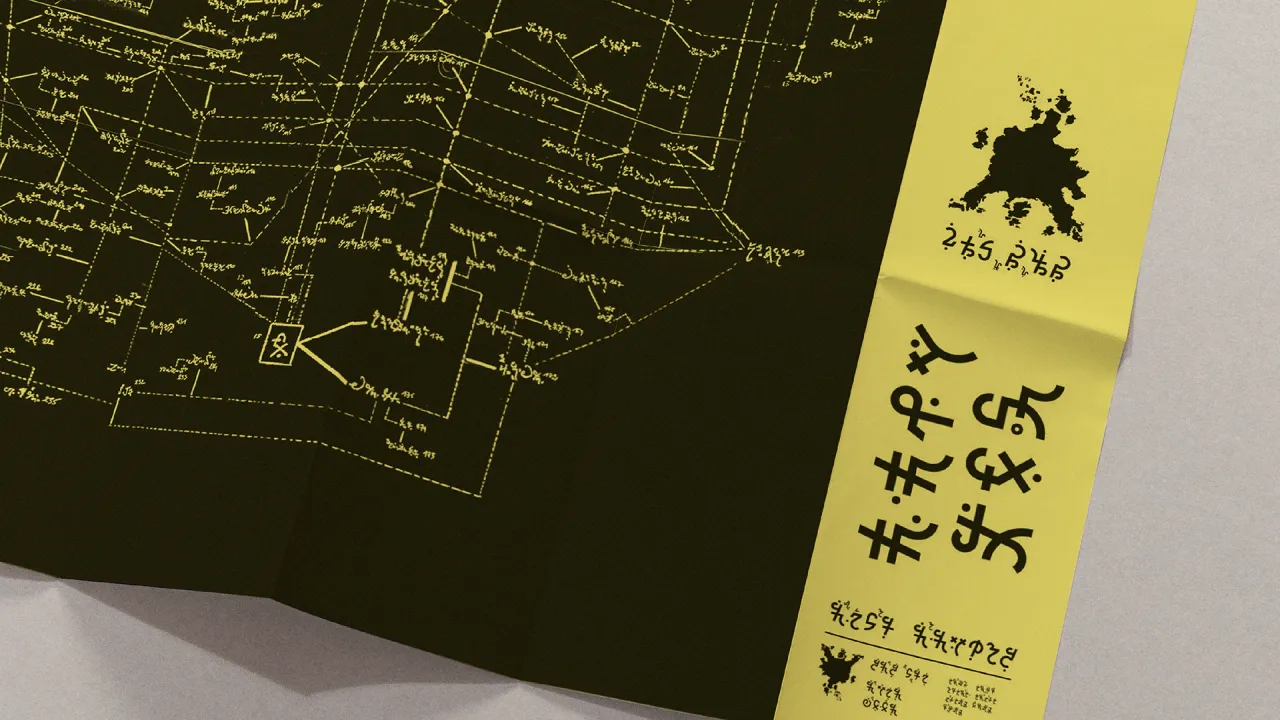
Barrault first encountered Nosfell’s work at a concert in 2007; and worked on his tour poster in 2016 to develop a unique typeface that would visually express Klokobetz.
“At first, I looked at many other scripts for reference, but I quickly realised that the project was different from all other typefaces—Klokobetz is a complete language with its own particular grammar and syntax,” Barrault told writer Angela Riechers. “The alphabet’s logic is specific to Nosfell yet is influenced by all kinds of other writing systems.”
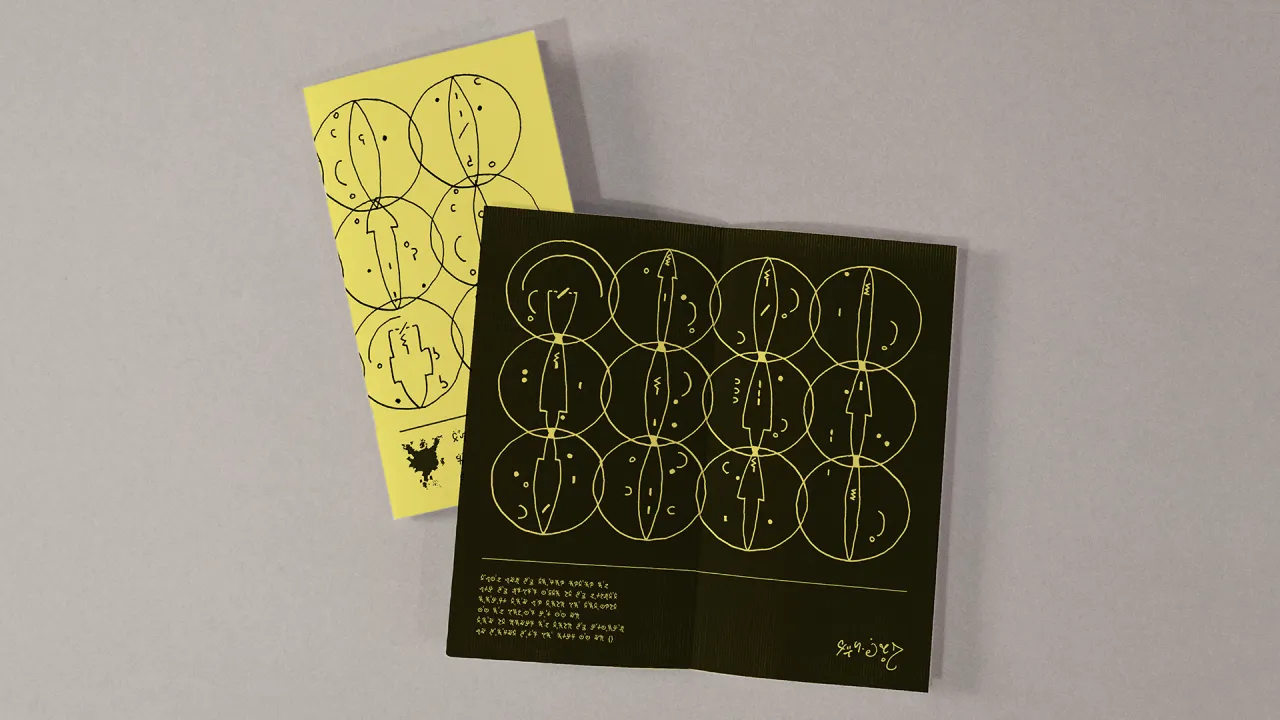
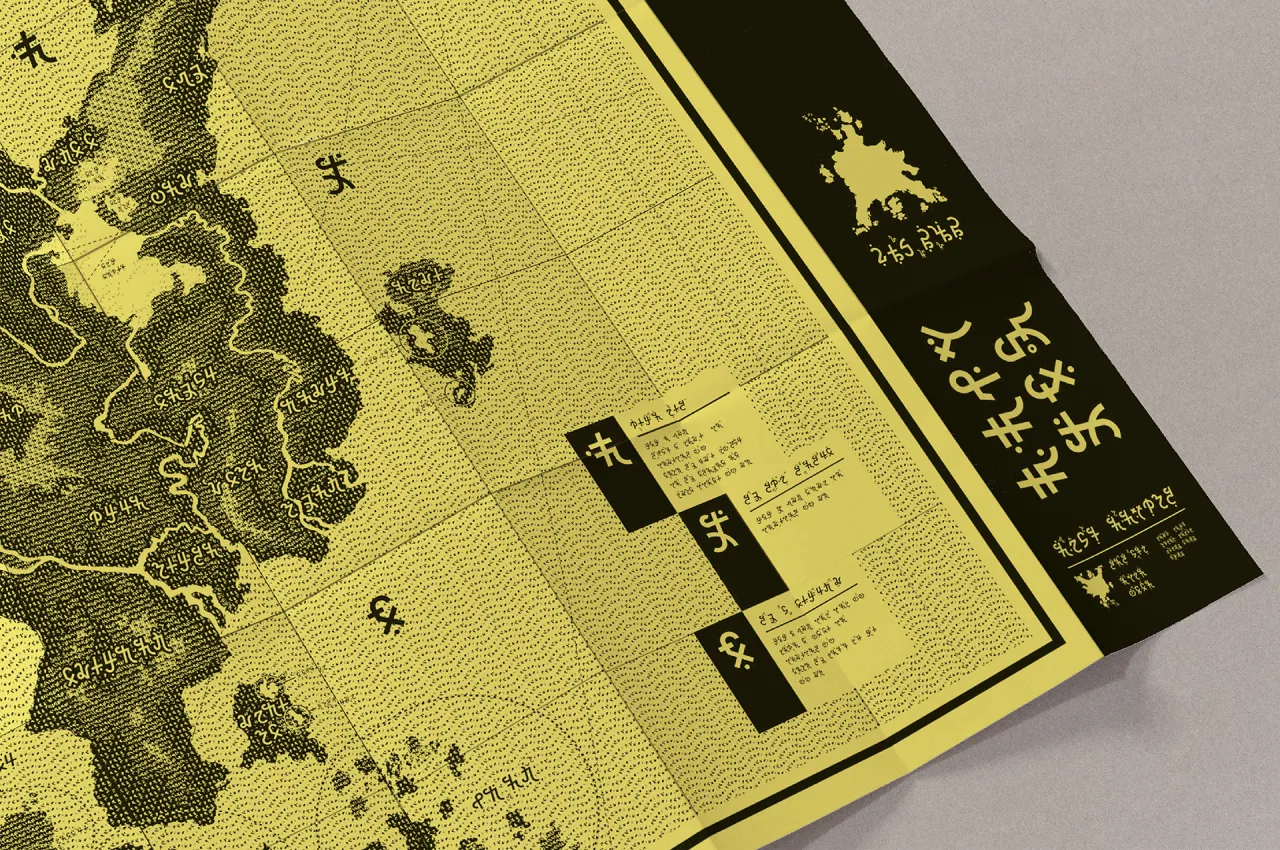
Nosfell's Klokobetz alphabet sketches were translated by Barrault into sans-serif letterforms using a grid, making them calligraphic in style while also nodding to mathematical notations.
The sense of rhythm aims to visually represent the sounds of Klokobetz.
“For me, Klokobetz is a poetic expression of an extension of the soul—a phantasmagoria of what could’ve been before the myth of Babel,” Nosfell says. “It is a graphic and musical way to address mankind’s questions on language and its origins.”